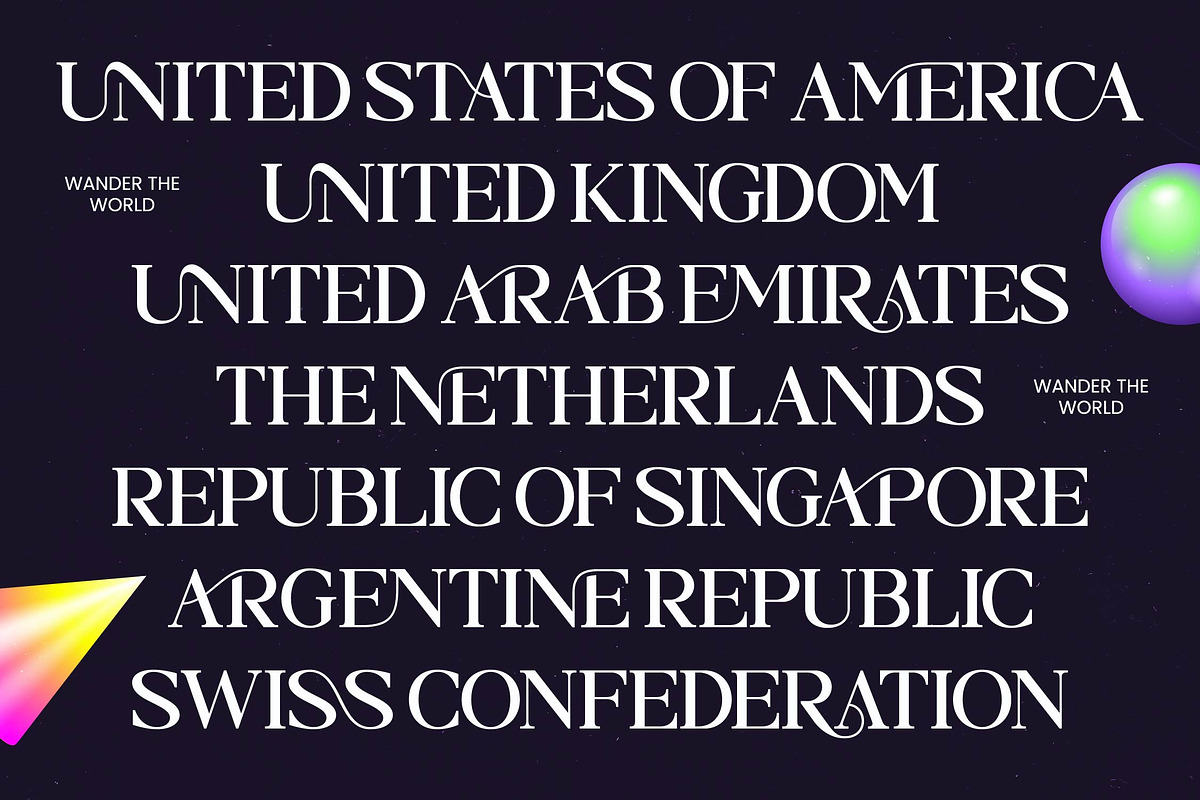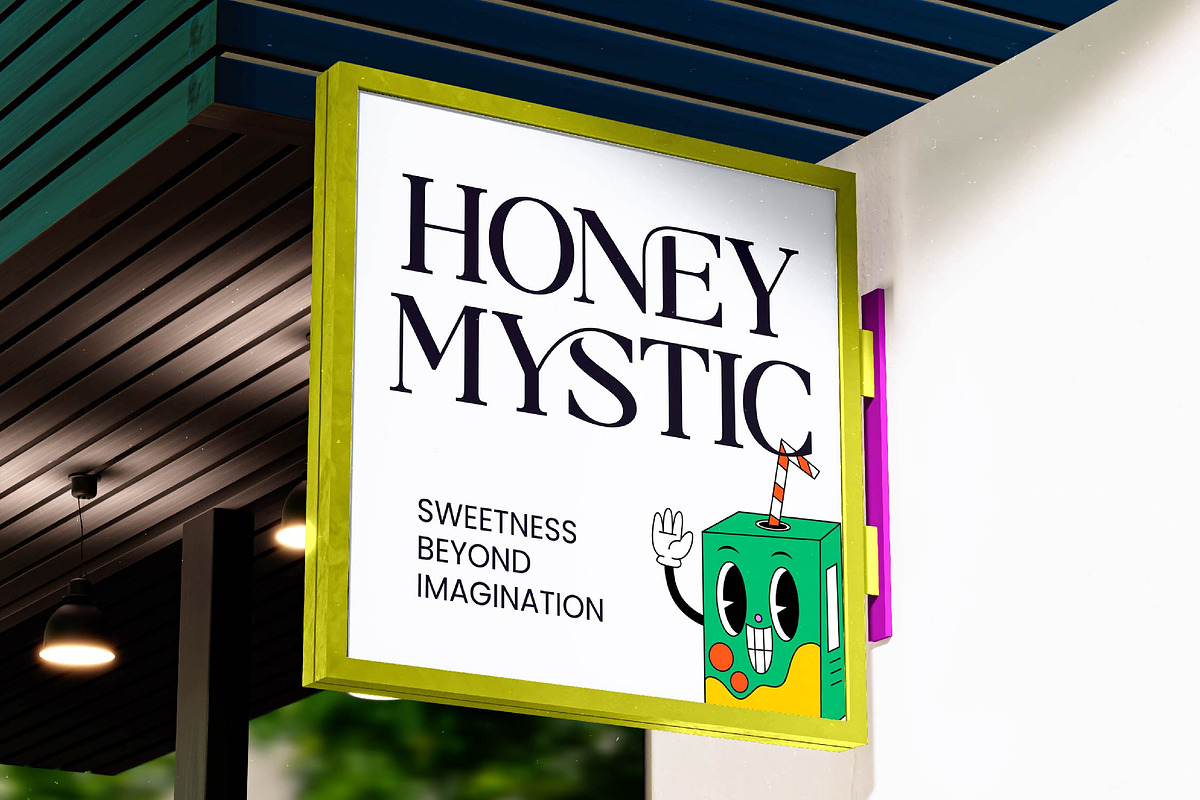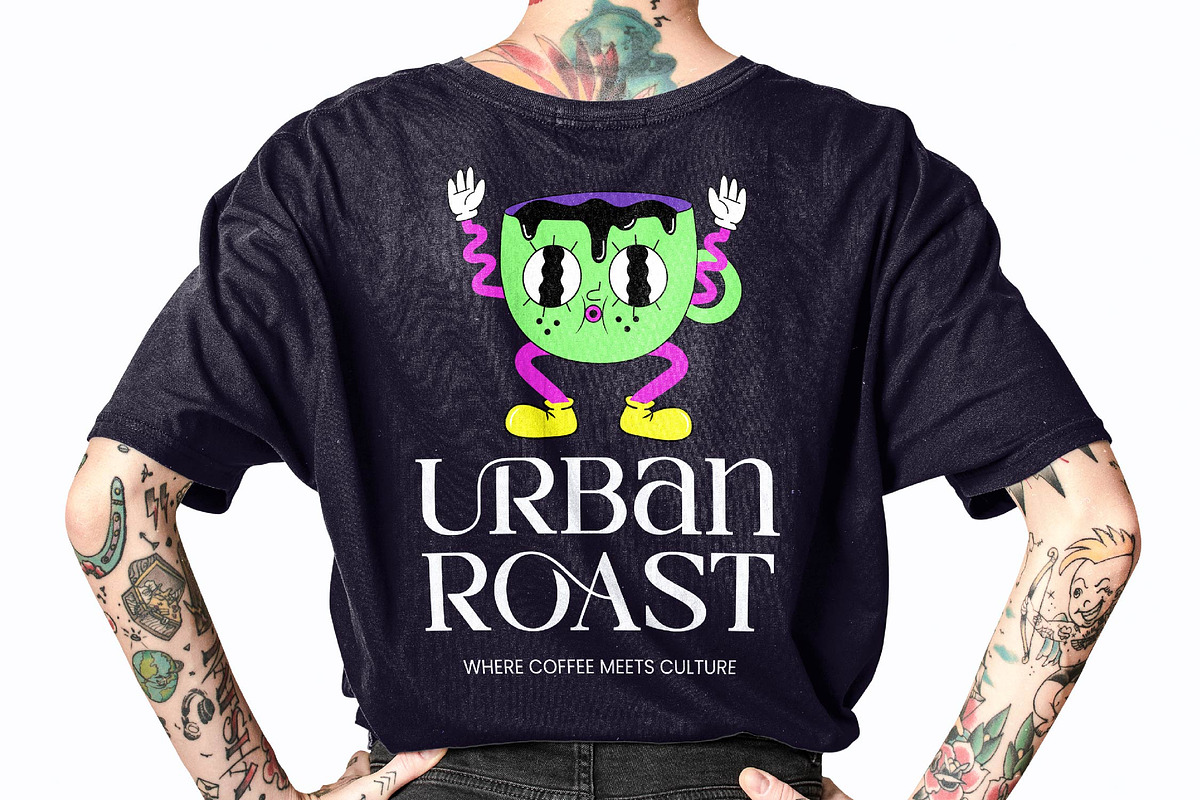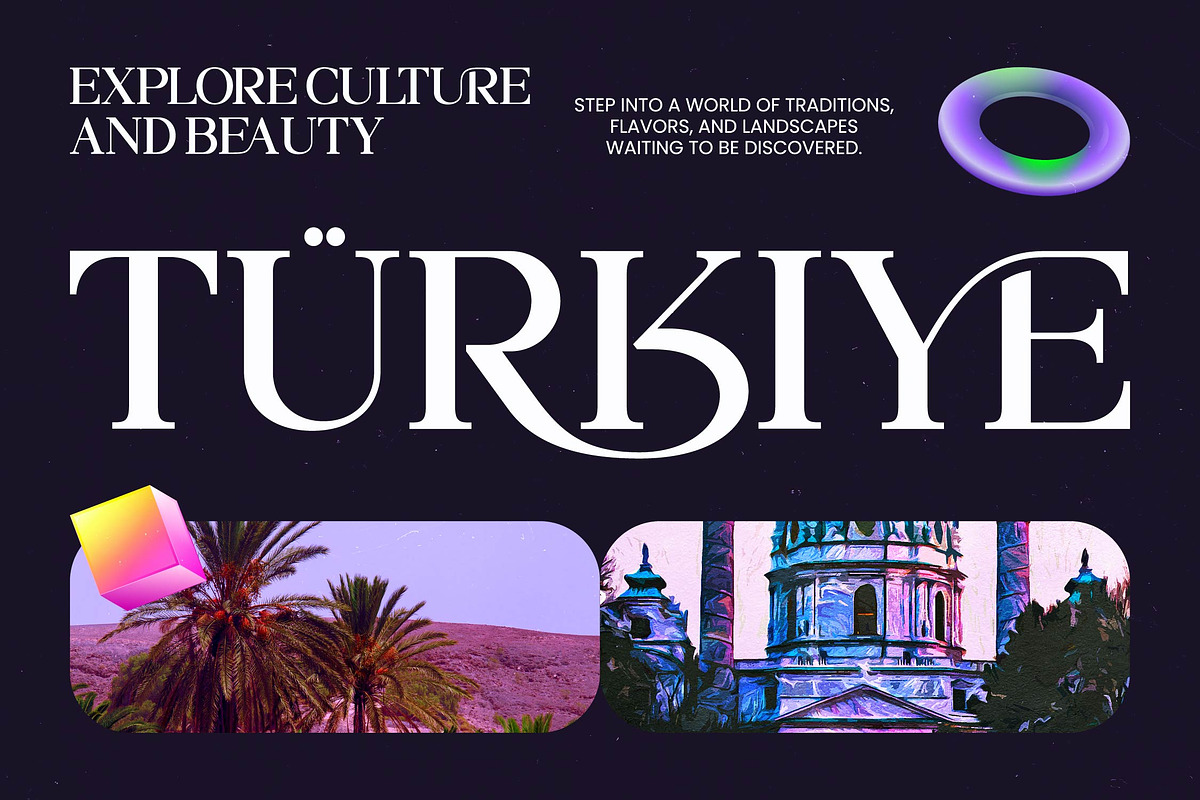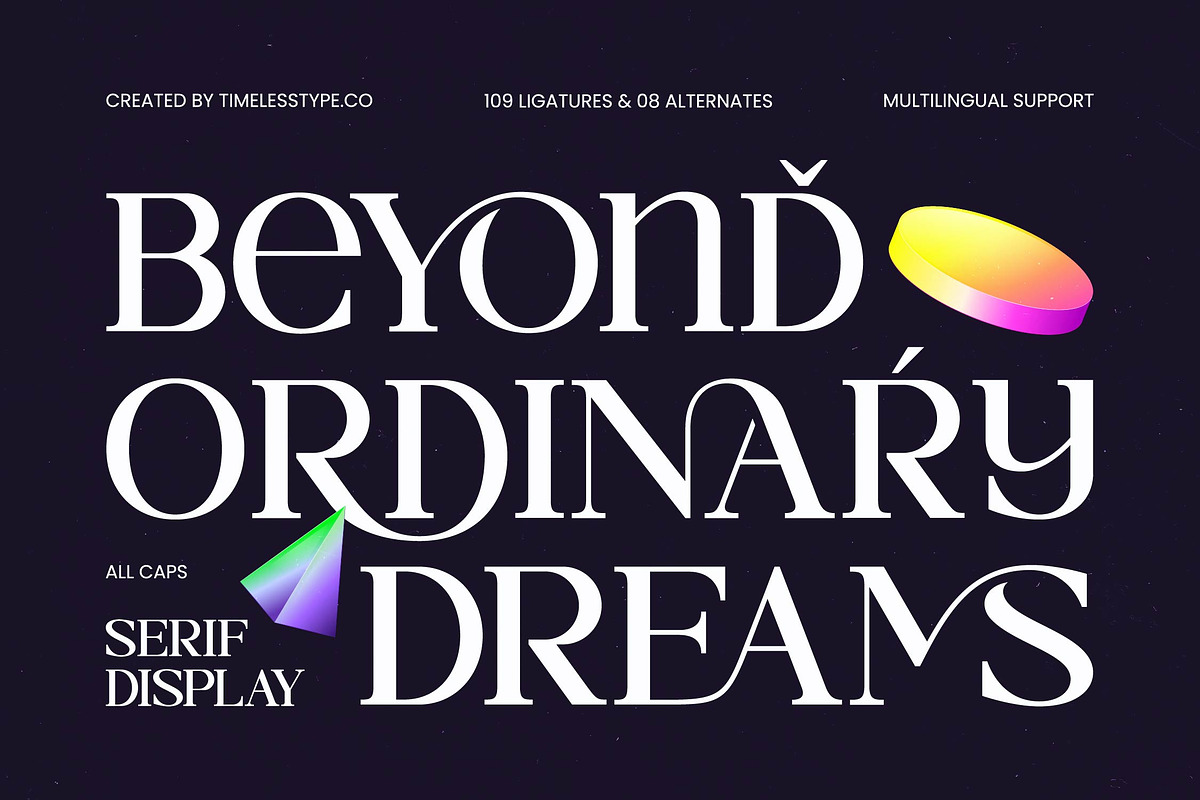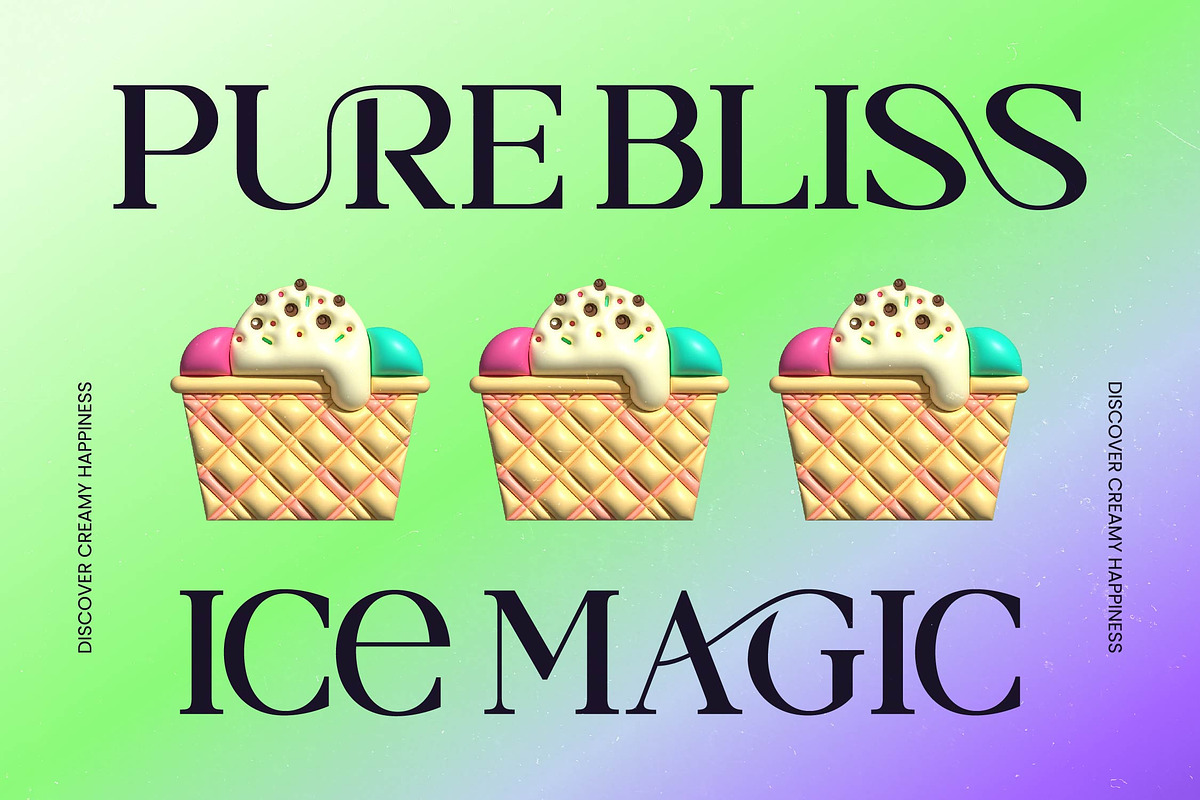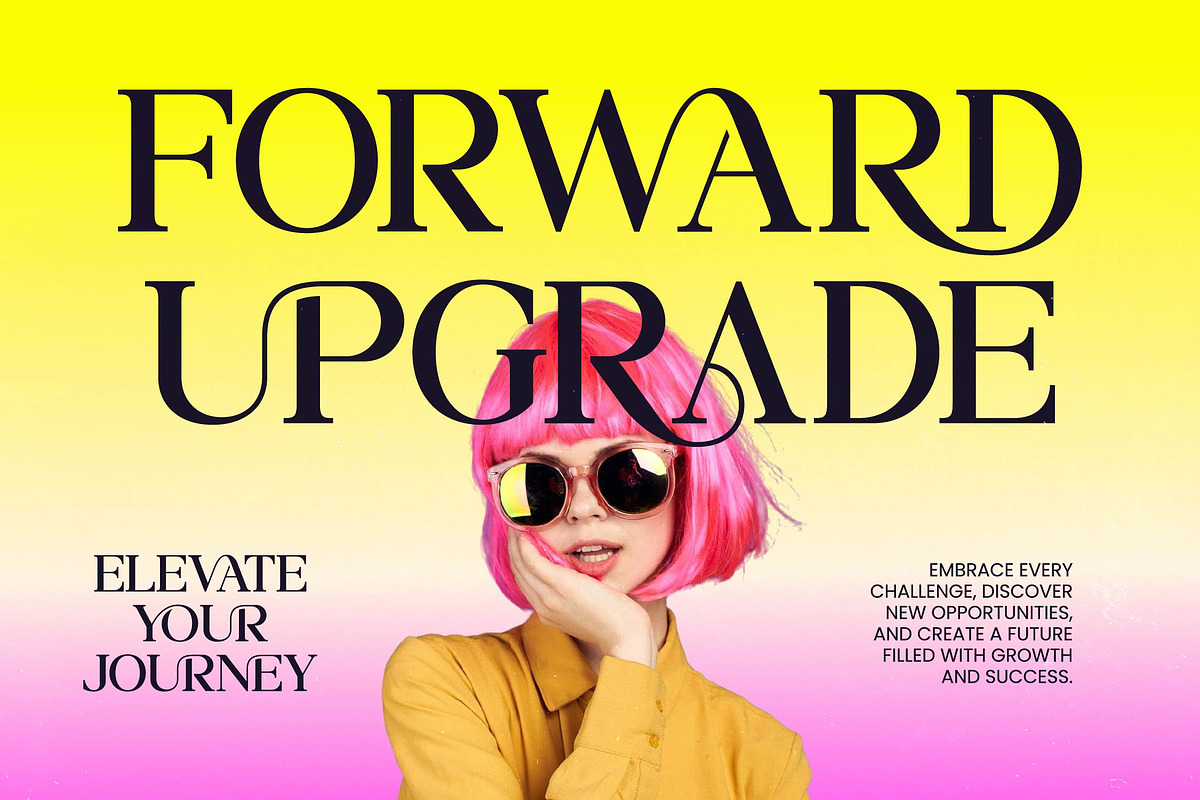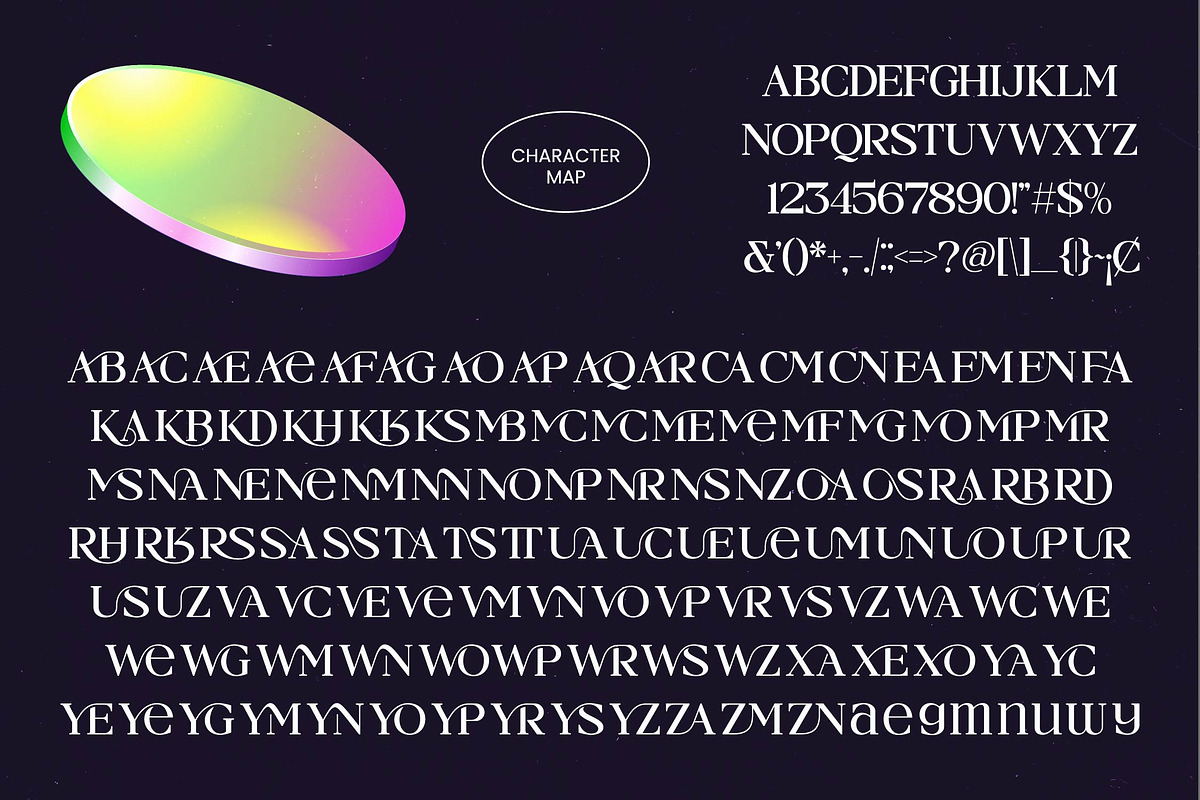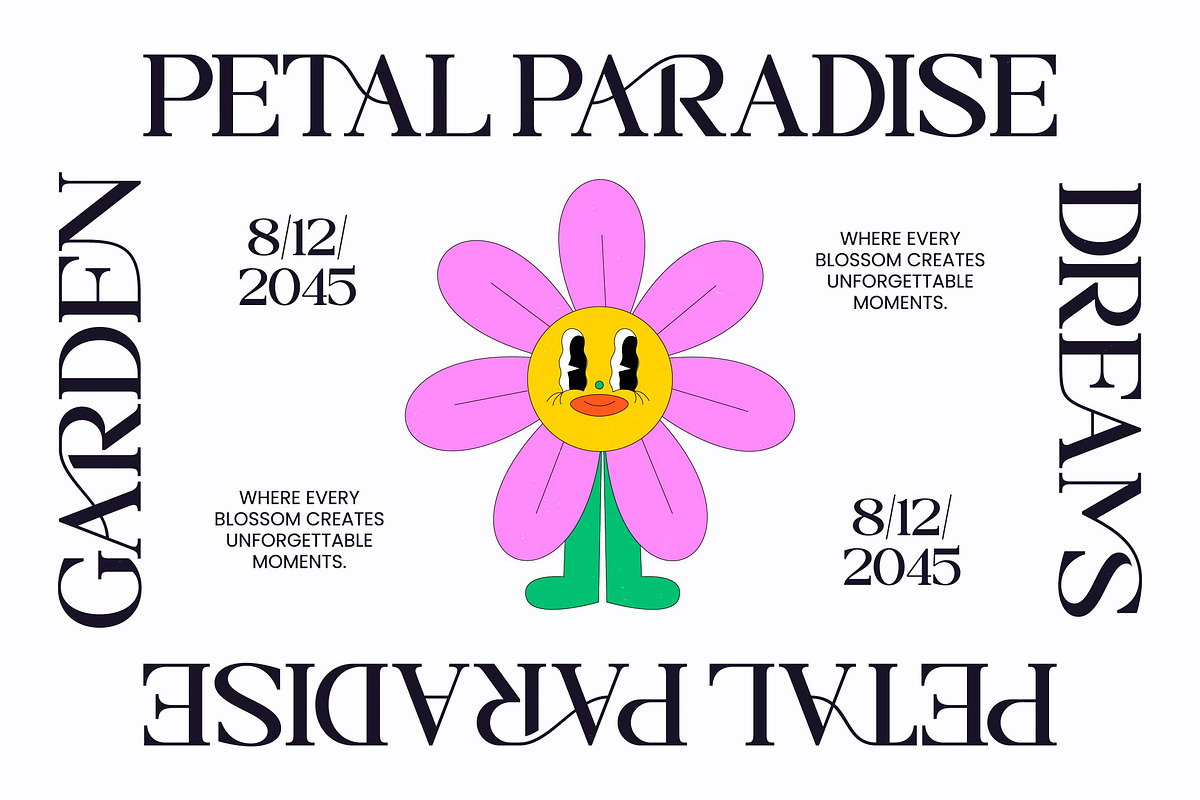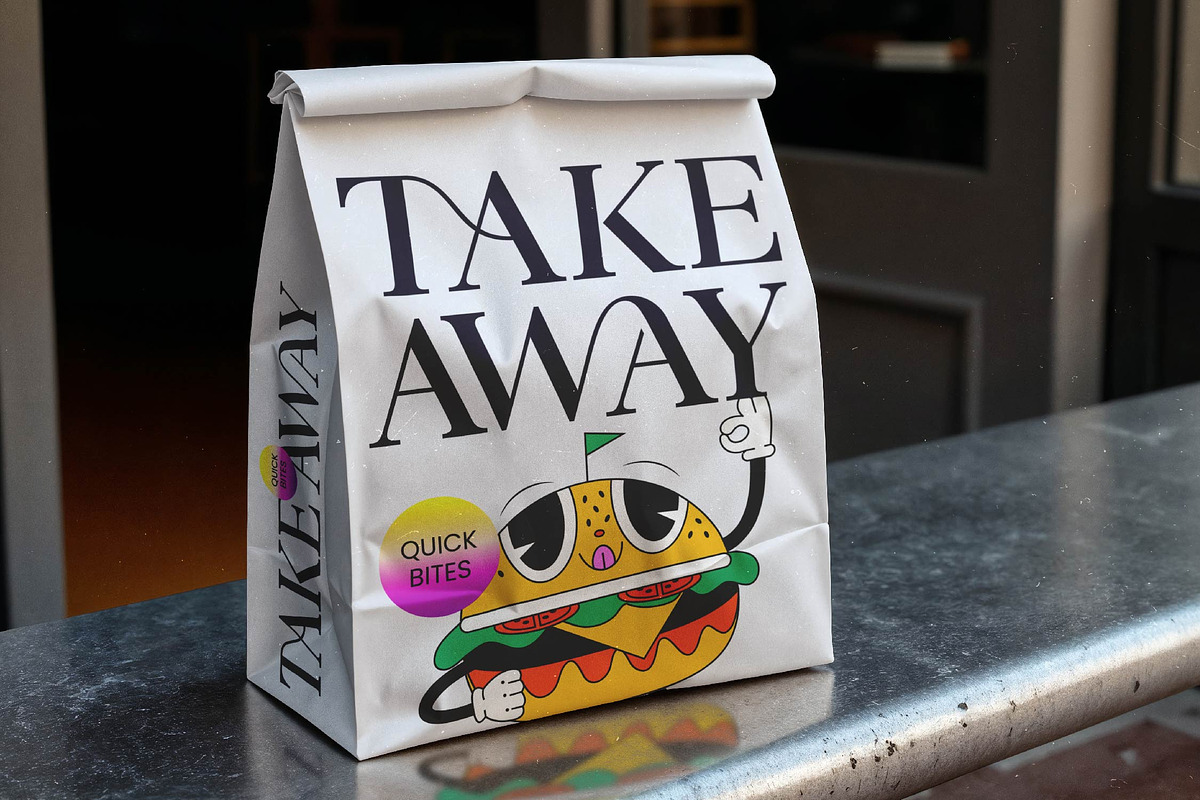
Beyond Ordinary All Caps Serif
Beyond Ordinary - All Caps Serif Display , Elevate your design projects to a new standard of elegance with Beyond Ordinary - All Caps Serif Display. This high-contrast serif typeface is meticulously crafted to blend classic sophistication with a modern editorial flair. Its bold strokes and refined curves command attention, making it the definitive choice for designers seeking to create a memorable visual identity that transcends temporary trends and exudes timeless luxury.
Unlocking your full creative potential is effortless with professional tools that prioritize quality and style. Featuring over 109 unique ligatures and 08 stylized alternates, Beyond Ordinary - All Caps Serif Display allows you to create custom-looking typography that feels bespoke and high-end. These dynamic character variations provide the flexibility needed to produce striking headlines and artistic layouts that truly stand out in a crowded digital landscape.
Reach a global audience with absolute confidence and linguistic precision. With its extensive multilingual support, Beyond Ordinary - All Caps Serif Display adapts seamlessly across global markets, making it incredibly versatile for international projects. This comprehensive character set ensures that your message remains consistent and impactful, regardless of the language, providing unrivaled accessibility for brands with a worldwide presence.
Transform your brand identity with a font specifically designed for high-impact applications. This typeface is perfect for luxury branding, high-end packaging, and editorial design in fashion and lifestyle magazines. Whether you are crafting premium logos, exclusive event invitations, or cinematic posters, Beyond Ordinary - All Caps Serif Display delivers the visual authority and polished finish necessary to define a truly prestigious brand presence.